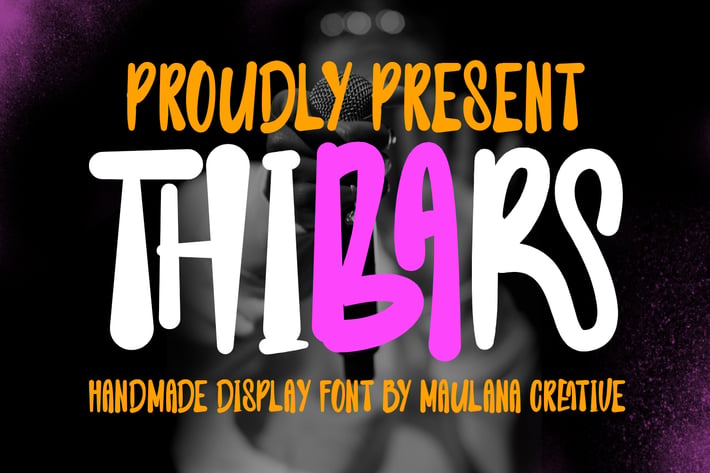
Thibars Handmade Display Font
Thibars handmade display font, fun character with a stylistic and ligatures. To give you an extra creative work. Thibars handmade display font support multilingual language.